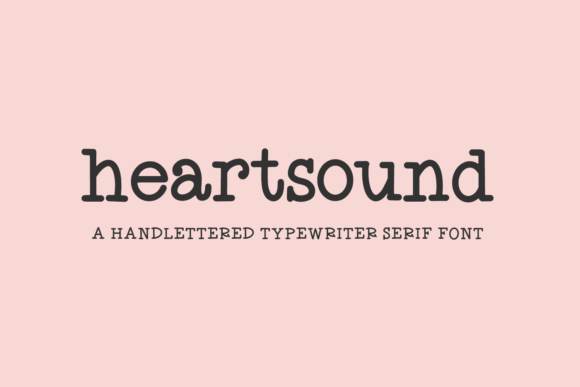
Introducing Heartsound Font, the perfect addition to your rustic and farmhouse-themed projects! Created by the talented BeckMcCormick, this cute handwritten typewriter serif font will surely catch your eye.
Heartsound Font is a unique blend of elegance and simplicity that brings a touch of charm to any design. Its vintage look and feel make it perfect for creating eye-catching logos, wedding invitations, product packaging, and more! Whether you're a graphic designer, blogger, or small business owner, Heartsound Font is a must-have in your collection.
With Heartsound Font, you can easily convey emotions and personality in your text. Its soft and romantic curves will tug at your heartstrings, while its sturdy serifs give it a touch of sophistication. This font is ideal for adding a personal touch to your projects, and its versatility allows it to be used in a wide range of applications.
Heartsound Font is not just a font; it's an experience. It captures the essence of the handwritten word and transports you to a simpler time. With its easy-to-read characters and stylish design, this font will make your text pop and grab your audience's attention.
Don't settle for ordinary fonts, choose Heartsound Font for a unique and memorable touch. Get ready to elevate your projects to the next level and impress your audience with this stunning font.